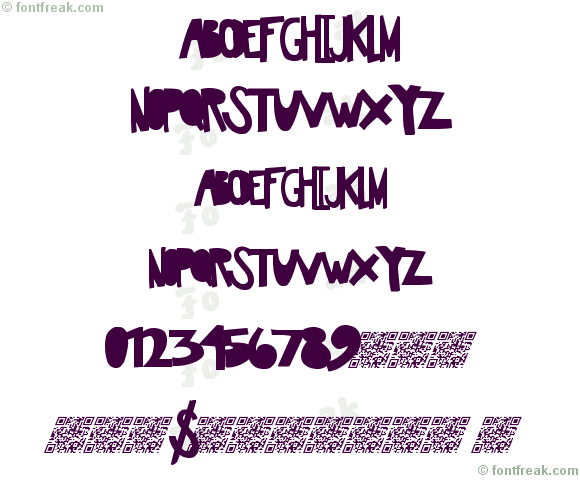
AwesomePlay
Introducing the AwesomePlay font by Xerographer Fonts, a dynamic display typeface that captures attention with its bold and playful character. This font is categorized as a decorative style, making it an excellent choice for projects that require a touch of creativity and flair. With its thick stroke weight and minimal contrast, AwesomePlay has a distinguished yet approachable design that stands out in any setting. The spacing is well-balanced, ensuring that each letter is easily readable while maintaining an energetic aesthetic that engages the viewer.
AwesomePlay is perfect for a variety of applications, including vibrant wedding invitations that need a fun twist, eye-catching movie posters that aim to draw in audiences, and trendy restaurant menus that reflect a lively dining experience. Additionally, this font can enhance social media graphics, making it a favorite among content creators who wish to leave a memorable impression. Graphic designers and small business owners alike will find AwesomePlay to be an invaluable asset in their toolkit, as it adds a layer of personality and uniqueness to any design project.
What sets the AwesomePlay font apart is its ability to combine playfulness with a professional aesthetic. This versatility allows it to adapt to various themes and occasions, ensuring that it remains relevant in an ever-evolving design landscape. Whether you’re looking to create something whimsical or bold, AwesomePlay provides the flexibility needed to achieve your vision. Plus, with the AwesomePlay font free download option, you can easily incorporate this stunning typeface into your designs without any financial barriers. Embrace the creative potential of AwesomePlay and elevate your projects to new heights with this exceptional font.